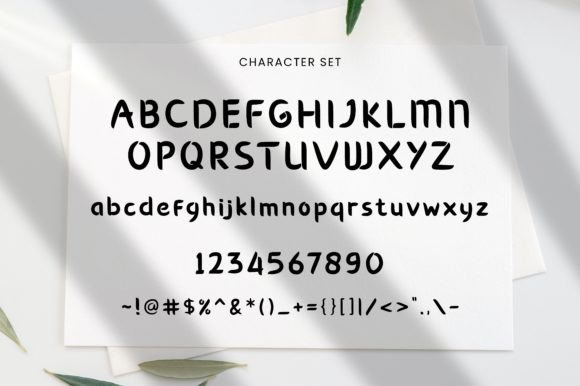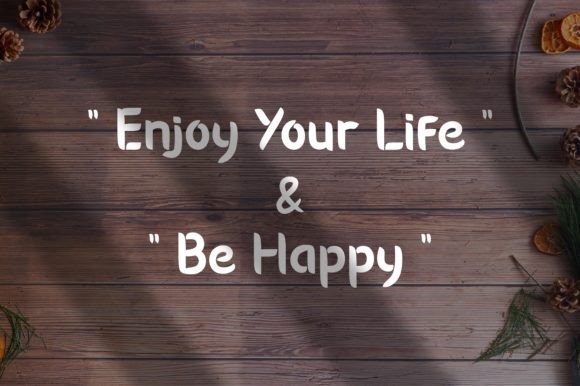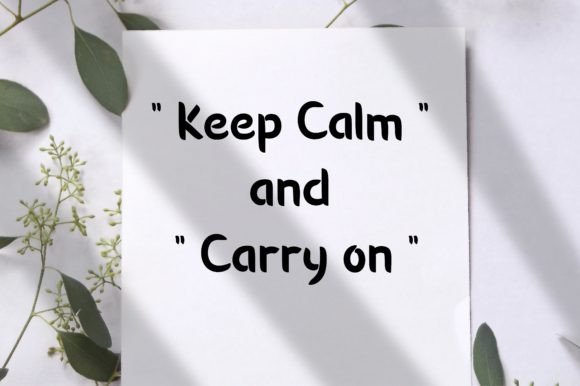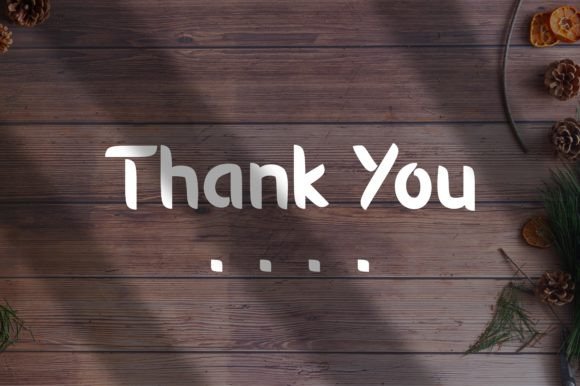
Introduction to Leandro Sugeng Font
Leandro Sugeng is a casual, modern, and playful handwritten font.
This font is the perfect fit for all of your logos, branding, social media, and other craft products .
Key Features of Leandro Sugeng Font
Why Choose Leandro Sugeng Font?